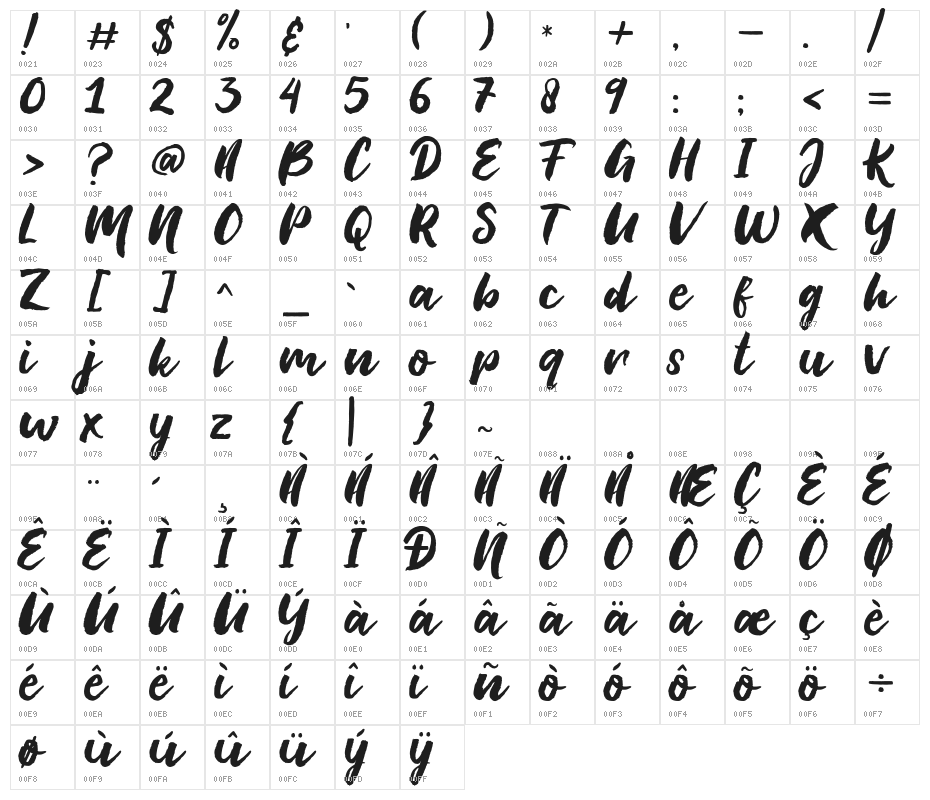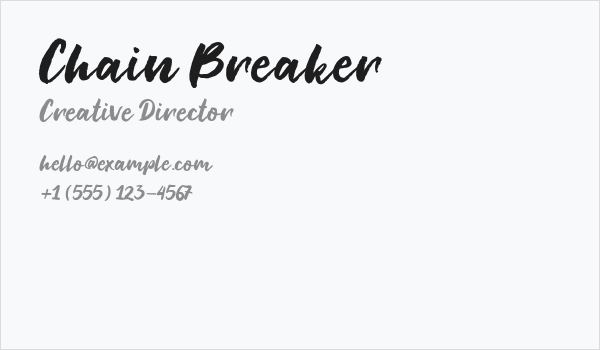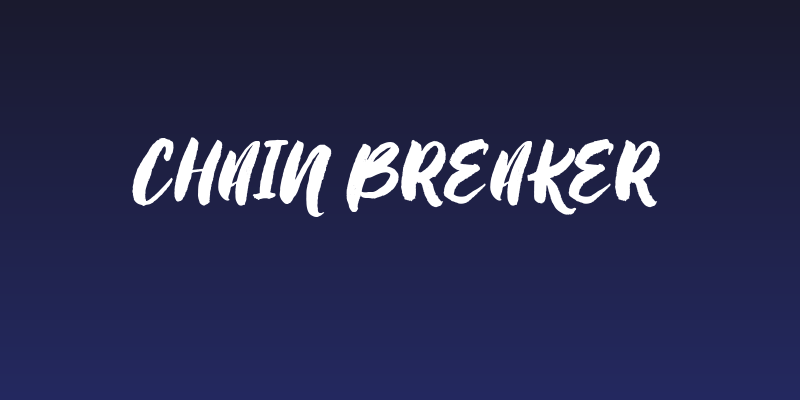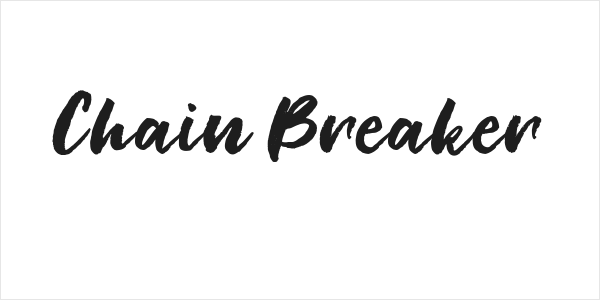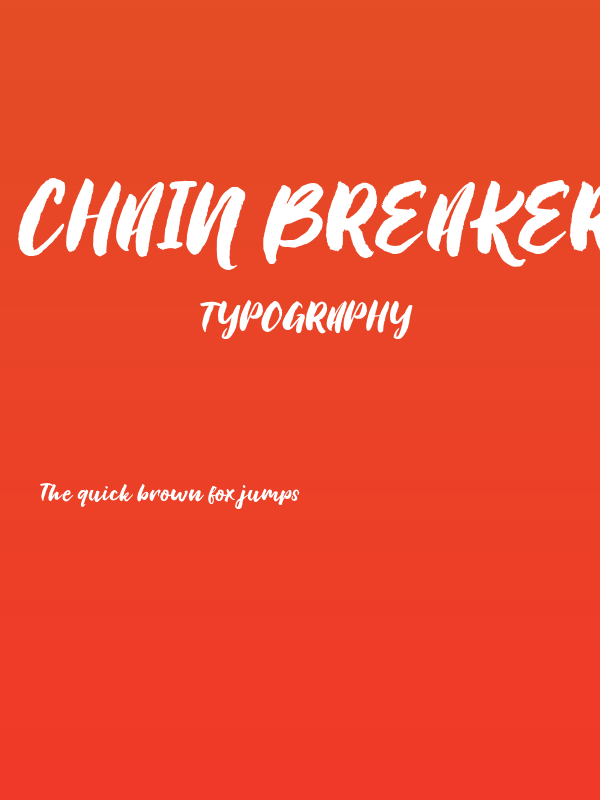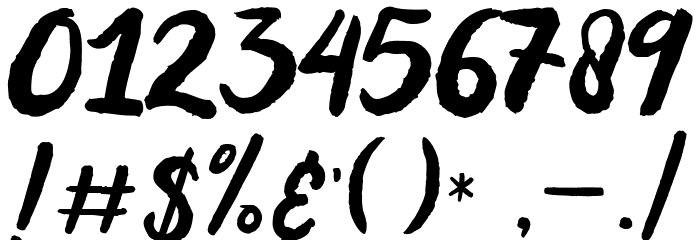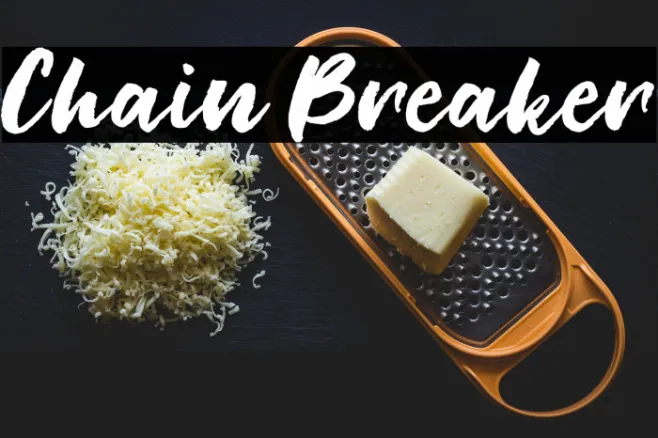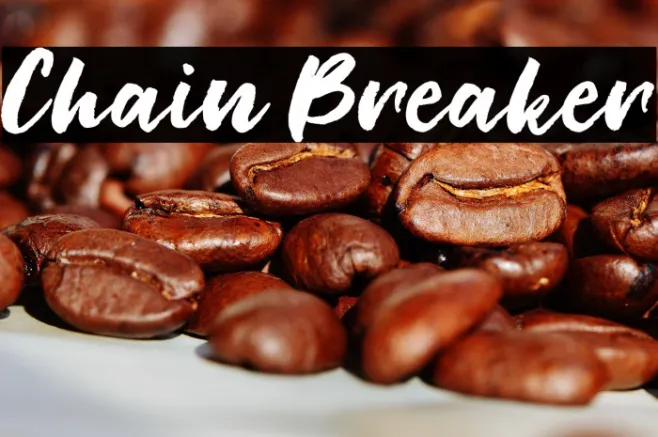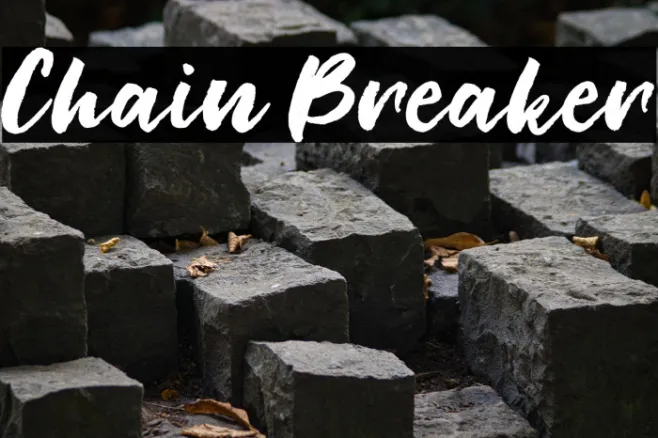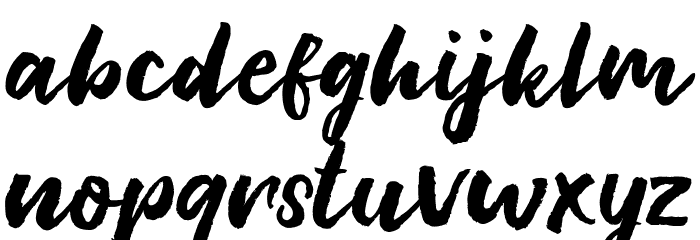
Chain Breaker Font
Chain Breaker Description
This font exhibits a bold and dynamic script style, characterized by its brush-like strokes and fluid, cursive forms. The uppercase letters are robust and expressive, with a sense of movement and energy. The lowercase letters maintain a consistent flow, enhancing the font's handwritten appeal. The numerals are equally bold, matching the overall aesthetic with their strong presence. Special characters are crafted with the same attention to detail, ensuring versatility across various applications. The font's high contrast in stroke thickness adds to its dramatic and impactful appearance, making it suitable for eye-catching designs.
| Proposed Projects | Ideal for branding, posters, invitations, and any design requiring a bold, expressive touch. |